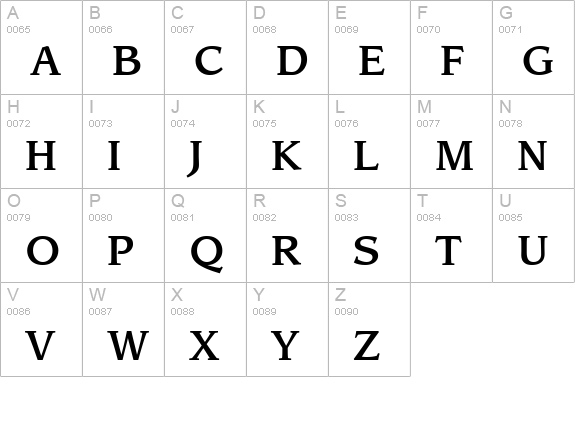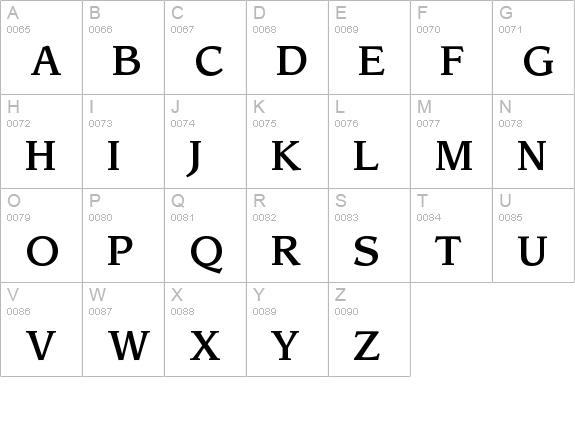
Advisor Medium SSi Medium is a balanced, medium-weight variant in the Advisor typeface family \xE2\x80\x94 well suited to sub-headlines, navigation, and balanced editorial work.
Advisor Medium SSi Medium font is a versatile and modern typeface that strikes the perfect balance between professionalism and creativity. With its clean lines and subtle elegance, this font is ideal for a wide range of design projects. Whether you're working on branding, editorial design, or web design, Advisor Medium SSi Medium font will add a touch of sophistication to your work. The best part? This font is available for free download at FontsMarket.com, making it accessible to designers of all levels. With its sleek design and easy readability, Advisor Medium SSi Medium font is sure to become a go-to choice for your projects. Download it today and elevate your designs with this timeless typeface.